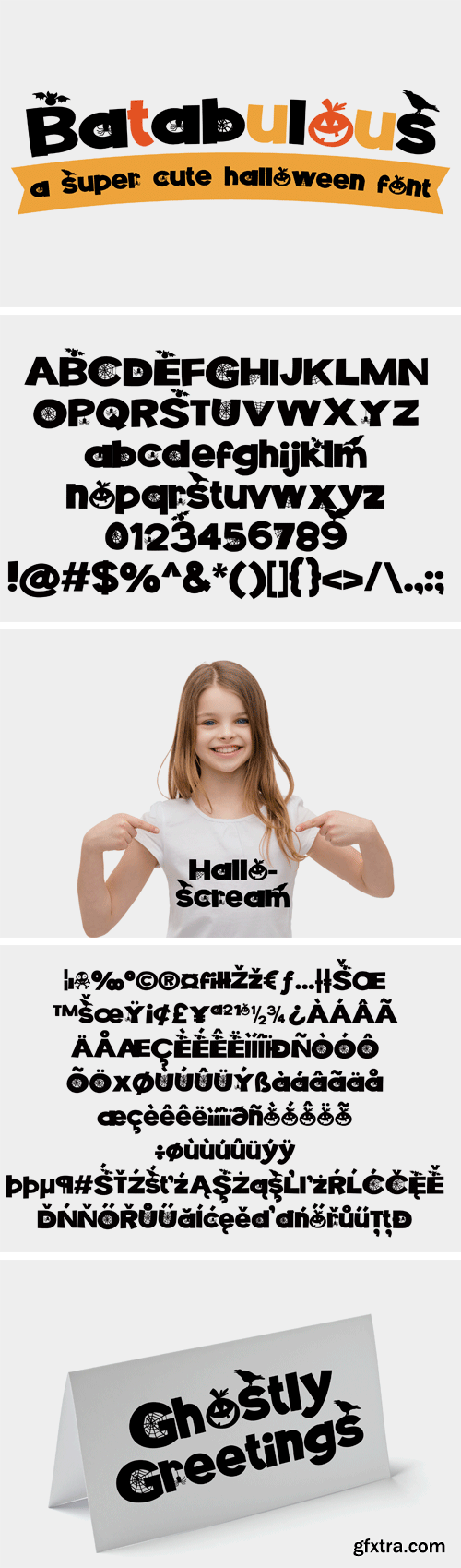
This Halloween themed font has an adorable jack-o-lantern for the "O" and a skull for the bullet as well as sporting many Halloween-themed silhouettes throughout.